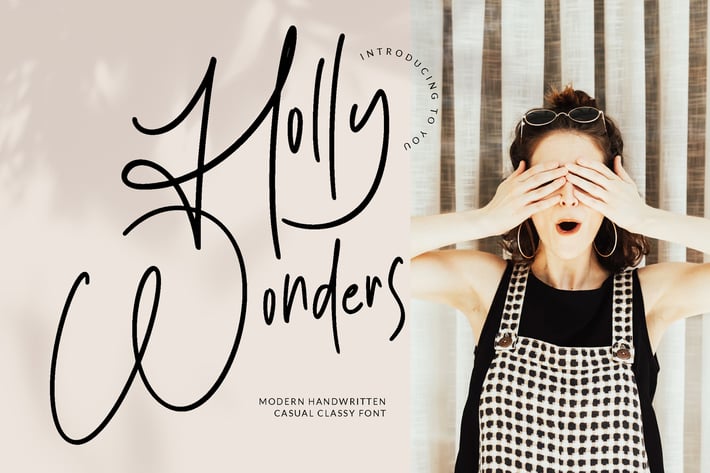
Holly Wonders Wedding Font
Holly Wonder is an organic handwritten font that is suitable for branding, signature, wedding invitation, promotion, product packaging, and other needs. This font is modern, simple, but still authentic.